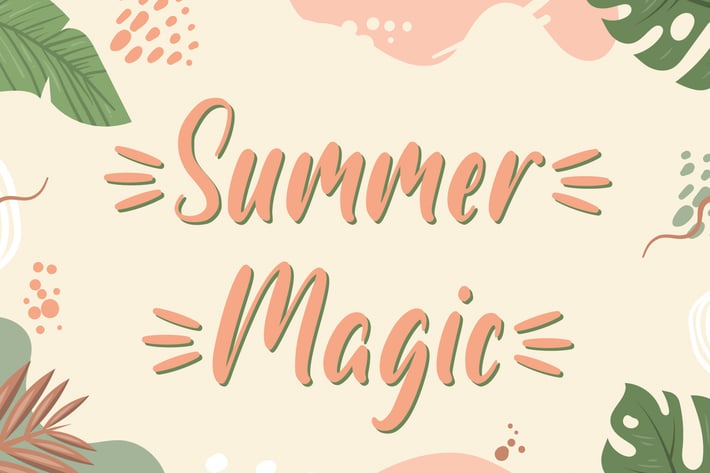
Summer Magic - Handwritten Font
Summer Magic font
A Quirky Playfull font.
Playful and fun.
Very tasty indeed.
A little bit quirky.
Full of character and unique.
Perfect for everything from branding to crafting. This versatile font is great for merchandise, products, quotes, editorial, posters or whatever design you have in mind. This is a great font for crafters.